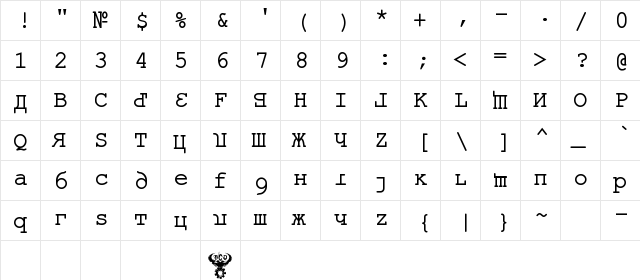
Kremlin Kourier II Regular
Design Context for Kremlin Kourier II Typeface
Kremlin Kourier II takes a measured approach to typography — its balanced proportions and neutral character make it a reliable workhorse for both digital and print work.